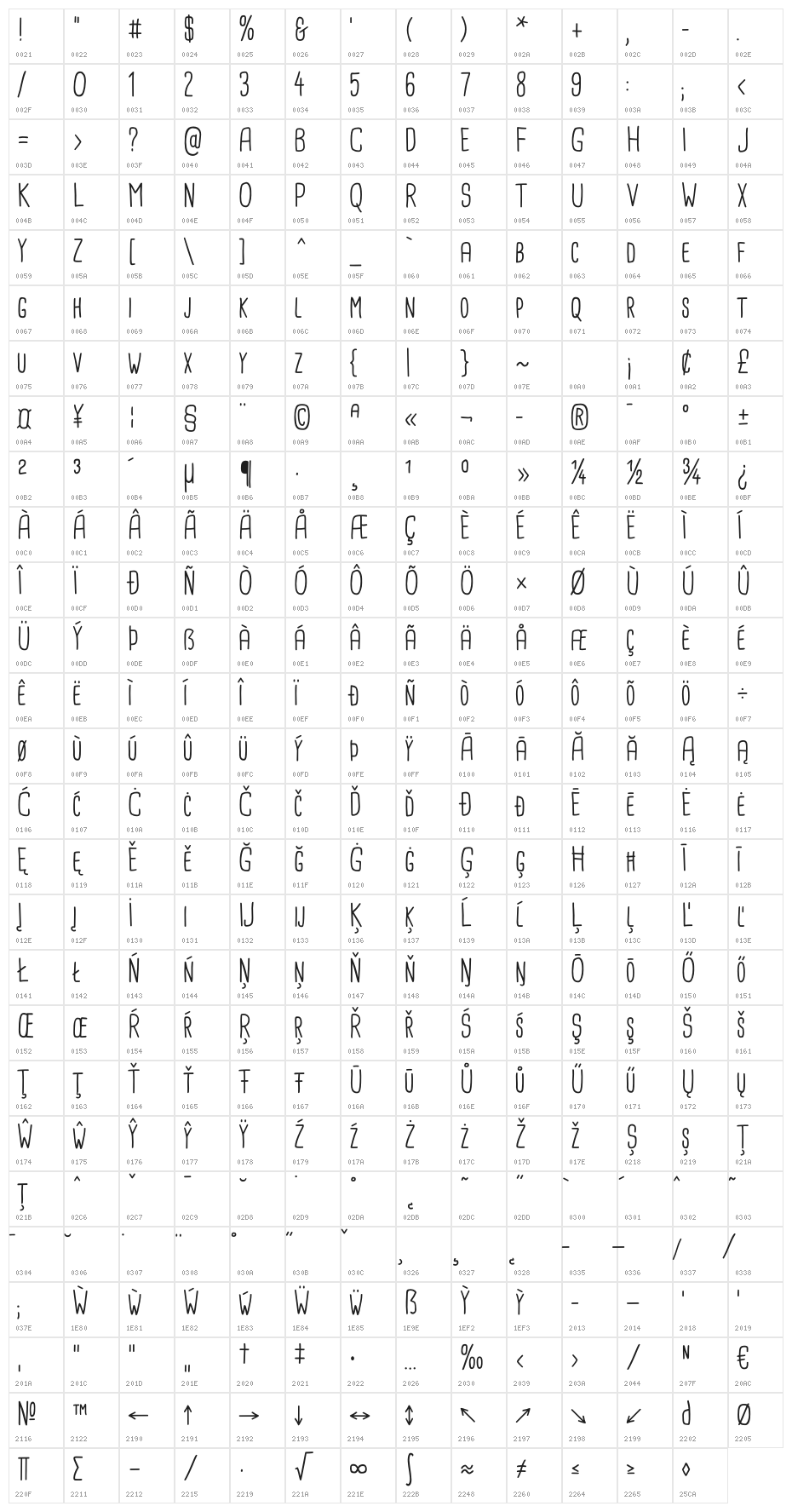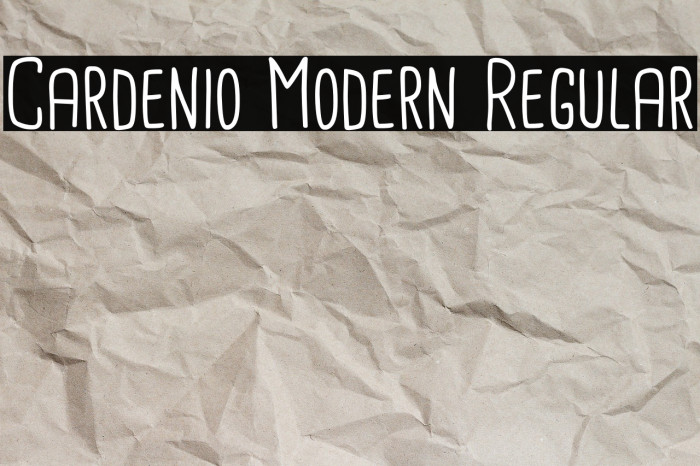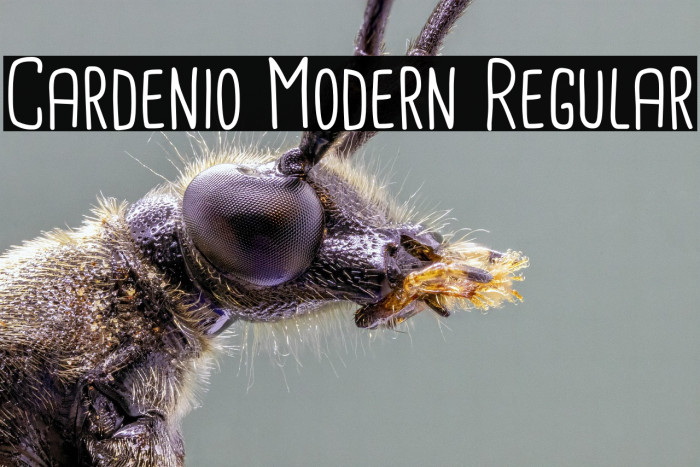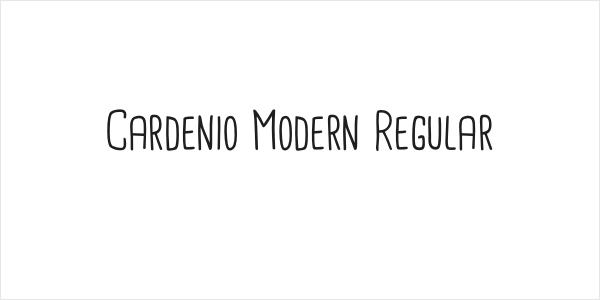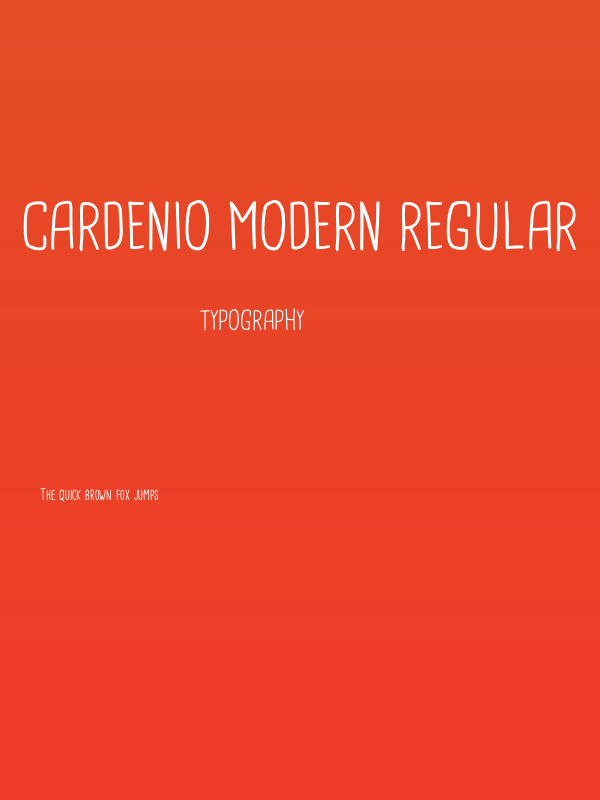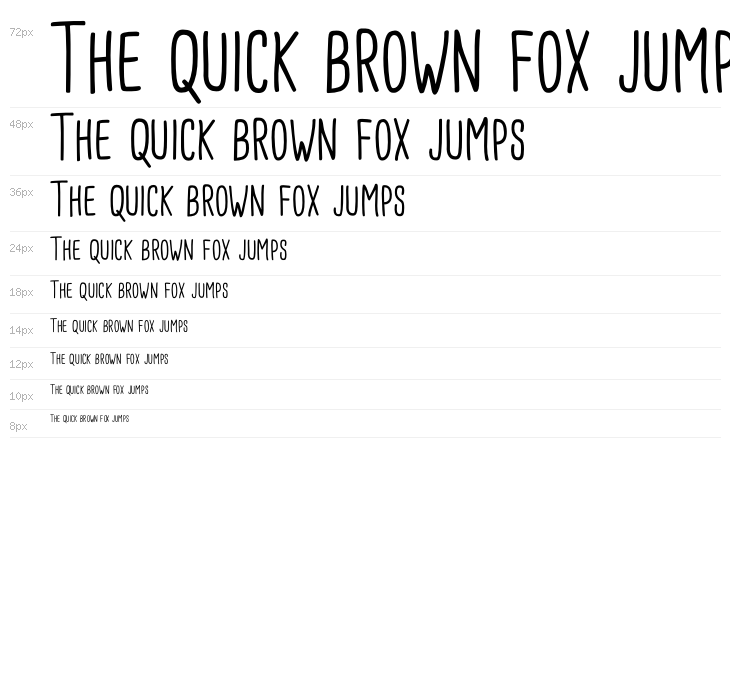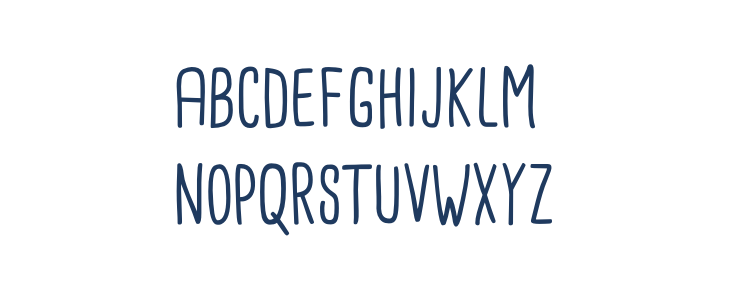
Cardenio Modern Regular Font
Cardenio Modern Regular Description
This font features a playful and modern handwritten style with a casual and approachable feel. The characters are tall and narrow, with a consistent stroke width that gives it a clean and uniform appearance. The uppercase and lowercase letters maintain a cohesive look, while the numerals and special characters are designed to match the overall aesthetic. This font's simplicity and clarity make it versatile for various design applications, offering a friendly and informal vibe.
| Use Case | Headlines, Logos, Informal text |
| Proposed Projects | Ideal for greeting cards, children's books, casual branding, and social media graphics. |